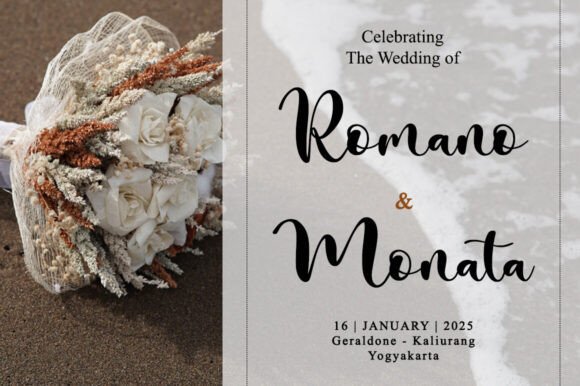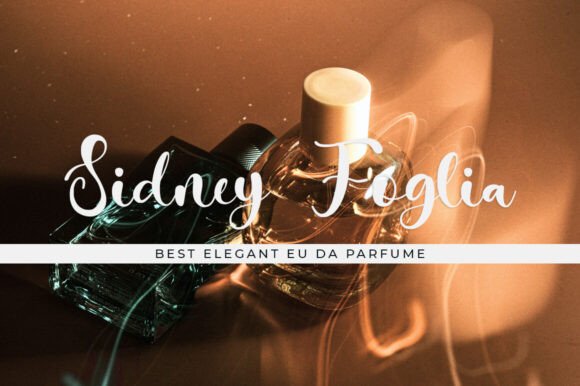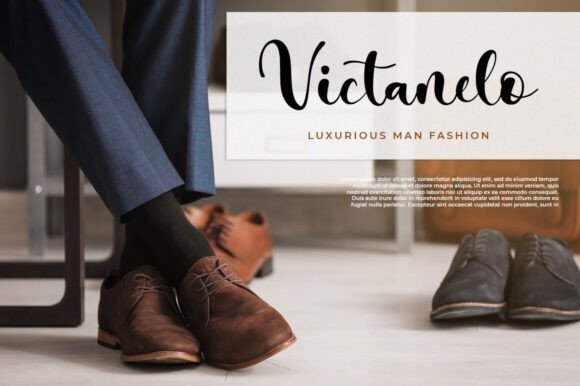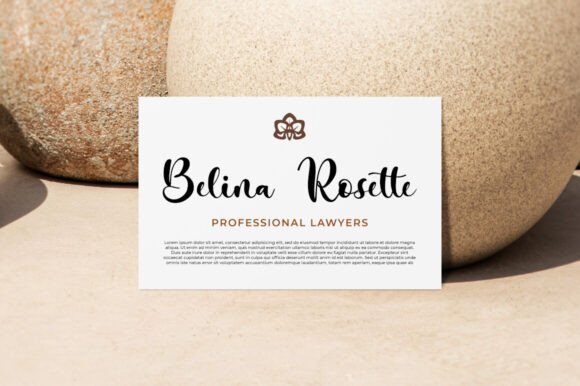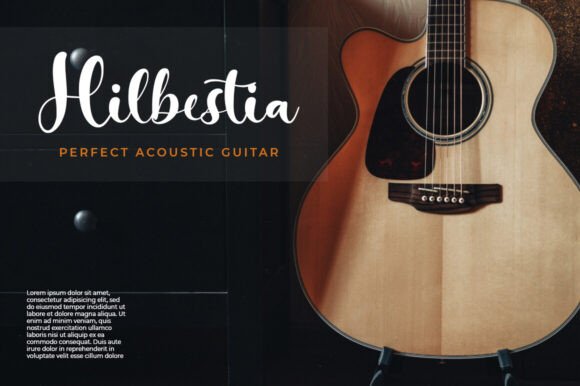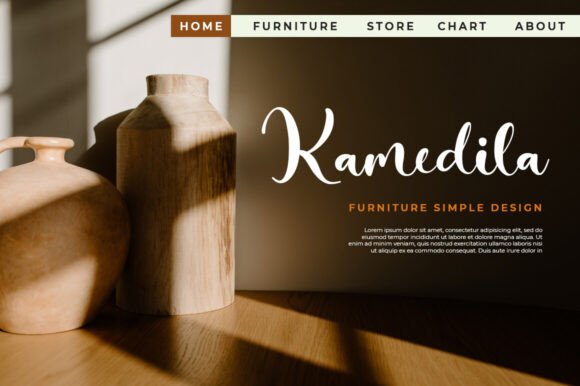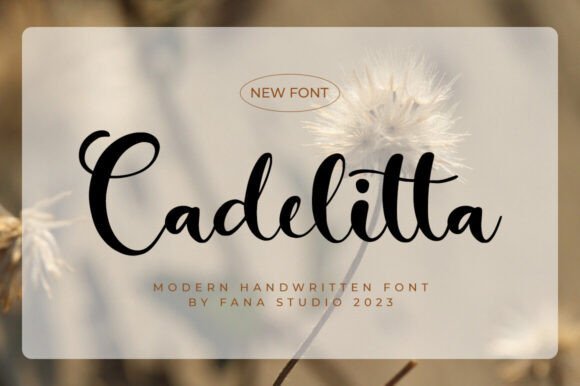
The Charm of Handwritten Perfection: Cadelitta Font
There’s something magical about a handwritten note or a beautifully crafted logo that instantly captures our attention. The soft curves, the gentle flow, and the imperfections that make it uniquely human – it’s a design element that never fails to evoke a sense of warmth and personality.
For designers, finding the perfect font to convey this charm can be a challenge. That’s where the Cadelitta Font comes in – a gorgeous typographic script that’s perfect for a wide range of projects, from logos and branding to invitations, stationery, and social media posts. With its elegant, handwritten style, the Cadelitta Font adds a touch of sophistication and whimsy to any design, making it a valuable addition to any designer’s toolkit.
Cadelitta Font Key Features
- Unique Characteristics: A script font with elegant, cursive strokes and flourishes, ideal for creative and artistic designs
Cadelitta Font Review
As a designer, I was excited to dive into the Cadelitta font, a script font that promises to add a touch of elegance to any project. Here’s my honest review.
- Unique flair: Cadelitta has a distinct flair that sets it apart from other script fonts.
- Readability: Despite its script nature, the font is surprisingly readable, making it perfect for body text or headings.
- Character support: Cadelitta comes with a wide range of characters, including Latin, Cyrillic, and Greek scripts.
- Font weight limitations: Cadelitta only comes in a few font weights, which might limit its use in certain projects.
- Lack of italics: Unfortunately, Cadelitta doesn’t come with italics, which can be a major drawback for designers who need to emphasize certain text.
- Not suitable for small sizes: Due to its script nature, Cadelitta can become illegible when used at small font sizes.
Overall impression
Cadelitta is a beautiful font that shines in projects where elegance and flair are key. While it has its limitations, it’s still a great choice for designers looking to add a touch of sophistication to their work. With some careful planning and font pairing, Cadelitta can be a valuable addition to any design toolkit.
Getting the Most Out of Cadelitta Font
For the best results, use Cadelitta Font in conjunction with bold or italic styles to add emphasis to your text.
Experiment with different font sizes to create visual hierarchy and balance in your design.
Cadelitta Font is ideal for:
- Titles and headings.
- Body text for formal or creative documents.
- Logos and branding materials.
Alternatives to Cadelitta Font
Bebas Neue is a modern sans-serif font with a sleek, geometric design. It is ideal for use in headings, titles, and logos where a clean and minimalist aesthetic is desired.
Compared to Cadelitta Font, Bebas Neue has a more angular and futuristic feel, making it suitable for contemporary designs and digital interfaces.
Montserrat is a geometric sans-serif font inspired by the urban landscape of Montserrat, a mountain range in Argentina. It is perfect for use in body text, headings, and titles where a clean and readable design is necessary.
Montserrat has a more humanist feel compared to Cadelitta Font, with a focus on readability and legibility. It is also more versatile and can be used in a wide range of design contexts.
Merriweather is a classic serif font with a traditional, elegant design. It is ideal for use in body text, headings, and titles where a sophisticated and refined aesthetic is desired.
Compared to Cadelitta Font, Merriweather has a more traditional and formal feel, making it suitable for use in academic, literary, and business contexts.
Inter is a modern sans-serif font with a clean and minimalist design. It is perfect for use in headings, titles, and logos where a simple and elegant aesthetic is desired.